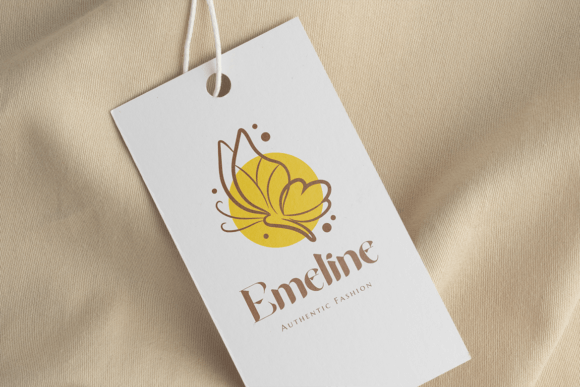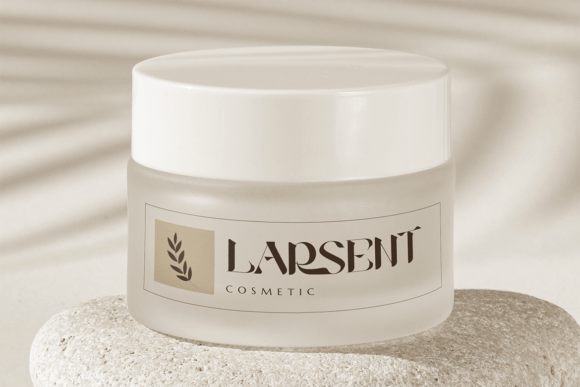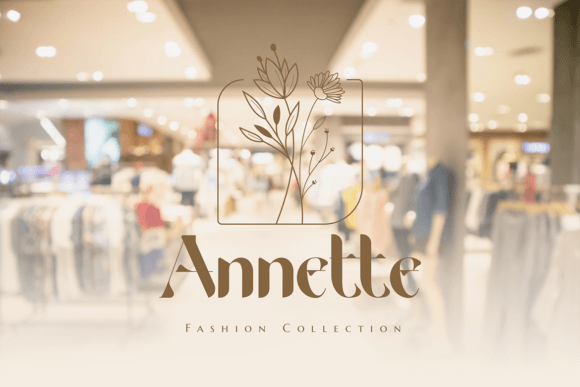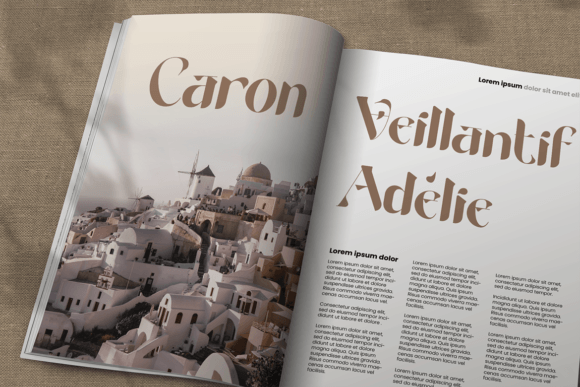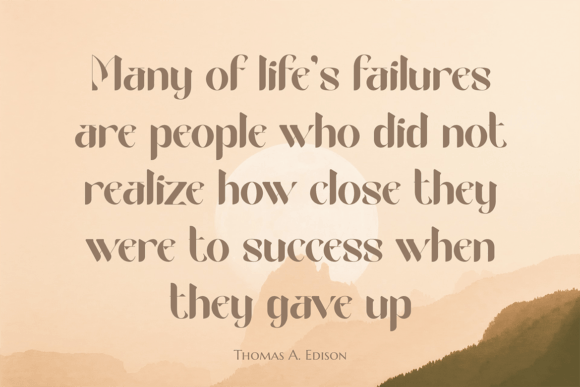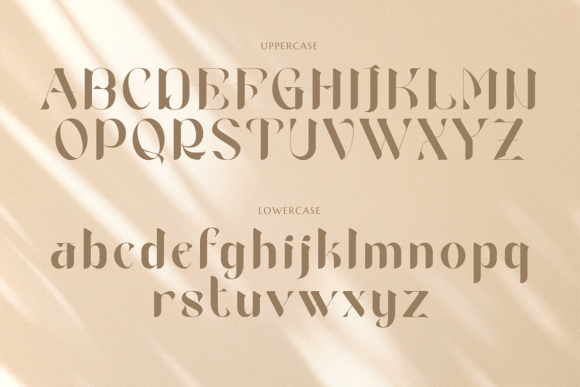
Introduction to Rooscha Font
As a designer, there’s nothing quite like the thrill of bringing a creative project to life. The moment when all the elements come together, and your vision is finally realized, is truly exhilarating. But, we know that finding the perfect design resource can be a daunting task. That’s why we’re excited to introduce you to the Rooscha Font – a beautiful, high-quality serif typeface that’s sure to elevate your branding and design projects.
With its exquisite, feminine spirit, Rooscha Font is the perfect choice for designers who want to add a touch of elegance and sophistication to their work. Whether you’re working on a wedding design, social media post, or product packaging, this versatile font is sure to make a lasting impression. And, the best part? It’s available for free download, so you can start using it in your next creative project right away.
So, what sets Rooscha Font apart from other design resources? Its unique blend of style and functionality makes it an invaluable asset for designers who want to create high-quality, visually appealing work. With its transparent background and beautiful typography, Rooscha Font is the perfect addition to any design project – and we can’t wait to see how you use it!
Key Features of Rooscha Font
- High-quality design resource ideal for creative projects and personal use.
- Features a transparent background, making it easy to integrate with any design.
- Designed with a unique aesthetic, perfect for adding a touch of elegance to your design.
Honest Review: Rooscha Font
I recently stumbled upon the Rooscha Font while searching for a free design resource to enhance my creative project. I was immediately drawn to its unique and elegant style, which I think will be perfect for my upcoming branding project.
What works well: ✨ The Rooscha Font has a very high quality feel to it, with crisp and clear lines that make it perfect for digital use. I also appreciate the fact that it has a transparent background, which makes it easy to integrate into my designs. The font is also highly versatile and can be used for a wide range of creative projects.
Some limitations: ⚠️ One thing I wish was included with the font is a comprehensive user guide, which would have been helpful in getting started with the design. Additionally, I would have liked to see more variations of the font, such as bold and italic styles.
Overall, I’m really impressed with the Rooscha Font and I think it’s a great addition to any designer’s toolbox. I would definitely recommend it to anyone looking for a high-quality, free font to use in their creative project.
- High quality feel
- Versatile and elegant style
Tips for Getting the Most Out of Rooscha Font
For the best results, use the Rooscha Font in high-quality designs, such as posters, flyers, and business cards. This font is ideal for creative projects that require a unique and stylish look. You can also experiment with different font sizes, colors, and styles to create a visually appealing design.
The Rooscha Font is commonly used in design projects that require a modern and elegant look, such as:
- Brochures and catalogs
- Web design and digital marketing materials
With its free download and high-quality design, the Rooscha Font is a valuable design resource for any creative project.